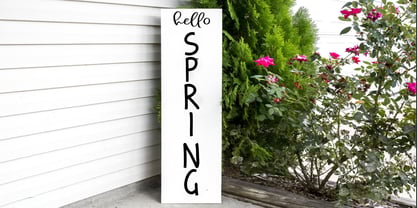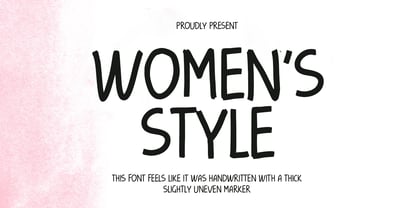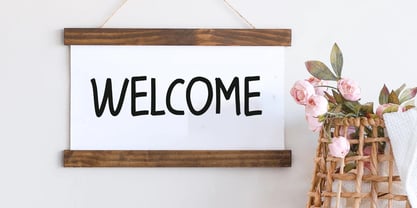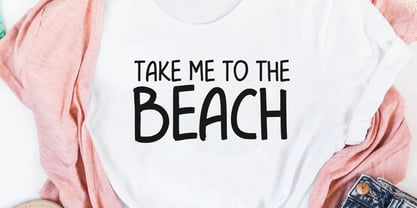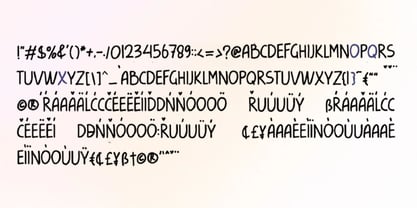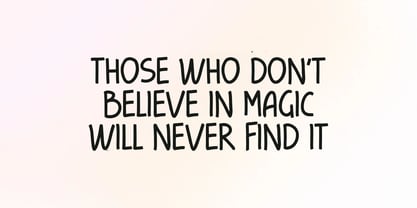
Womens Style
by Aqeela Studio
The Womens Style Font Family was designed by Muhammad Nasir and published by Aqeela Studio. Womens Style contains 1 styles.
This font feels like it was handwritten with a thick, slightly uneven marker, giving it a friendly and approachable vibe. The rounded forms and slightly varying stroke widths add a touch of informality and personality, as if someone quickly but carefully jotted down these words. It's clean and legible, avoiding any overly decorative elements, which makes it easy to read despite its casual style.
I can imagine this font being perfect for branding that wants to feel down-to-earth and relatable, perhaps for handmade goods, children's products, or anything aiming for a personal touch. It strikes a nice balance between being playful and clear, making it versatile for headings, short blocks of text, or even logos that want to convey a sense of authenticity. It's the kind of font that feels like a warm welcome in letter form.
Designers: Muhammad Nasir
Publisher: Aqeela Studio
Foundry: Aqeela Studio
Design Owner: Aqeela Studio